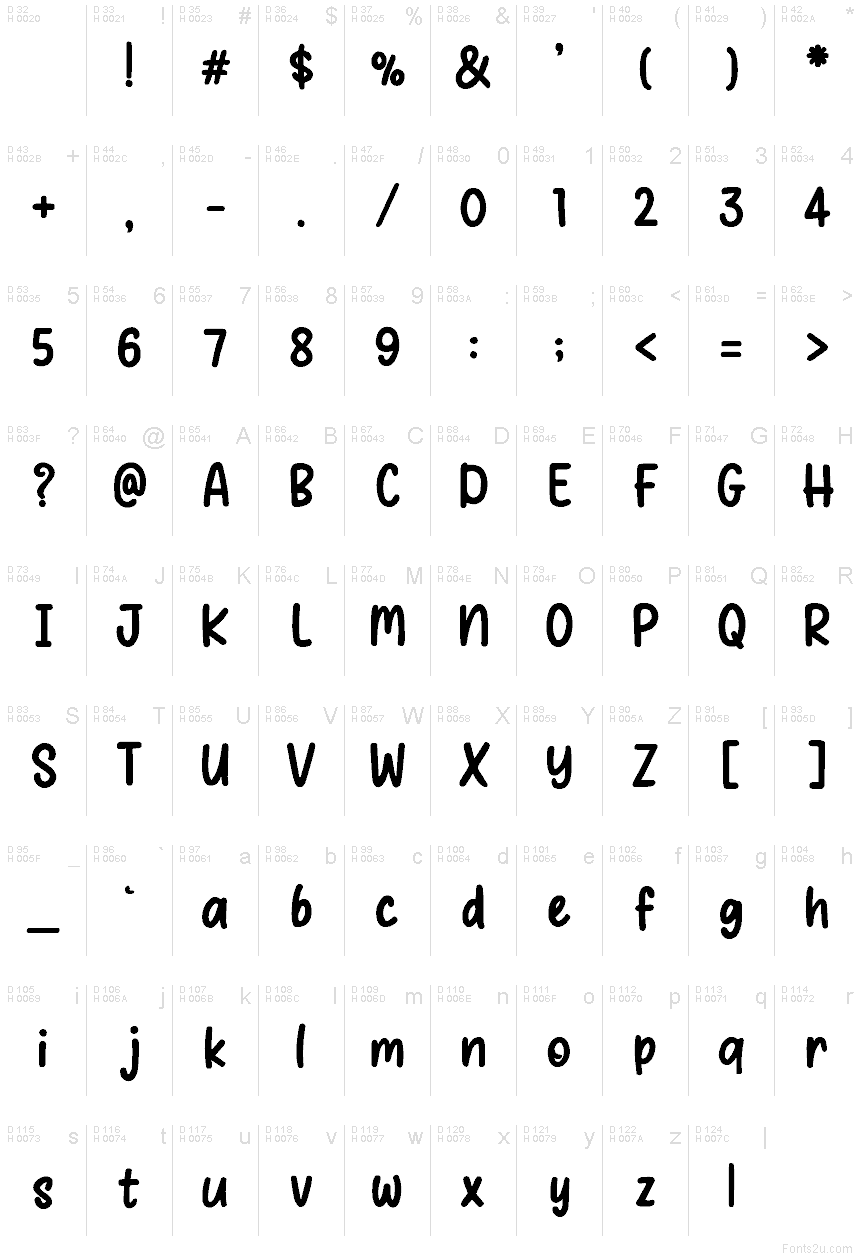
Zazou fait des Bisous
Zazou fait des Bisous font by BlackFridayFont FMF is a free handwritten typeface that feels like a warm note scribbled in thick marker. Rounded strokes, playful curves, and slightly bouncy lines give it a friendly, kissable energy that’s hard to fake with more polished scripts. It stays bold and legible even at smaller sizes, so you get plenty of charm without sacrificing readability.
Using Zazou fait des Bisous, you can bring a soft, affectionate tone to greeting cards, kids’ book covers, party invitations, social media graphics, product packaging, and cozy café menus. This free font shines whenever you want words to feel personal, cute, and a bit cheeky. Try pairing it with a clean geometric sans for body text and let Zazou fait des Bisous handle the headlines and short phrases.